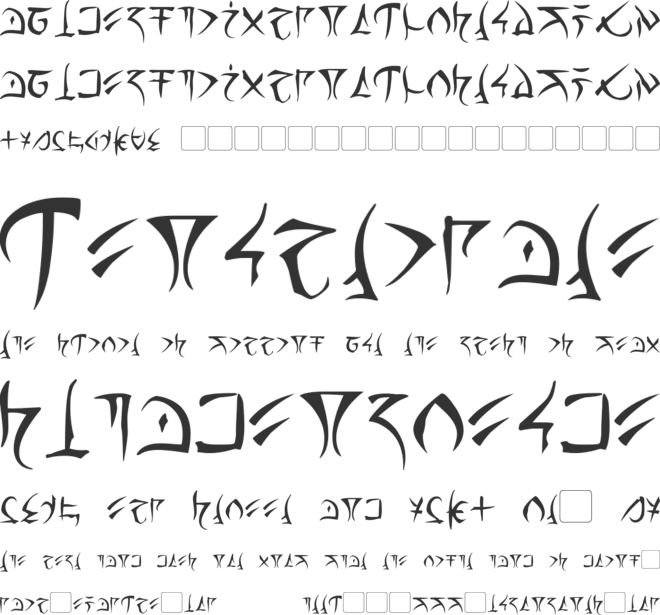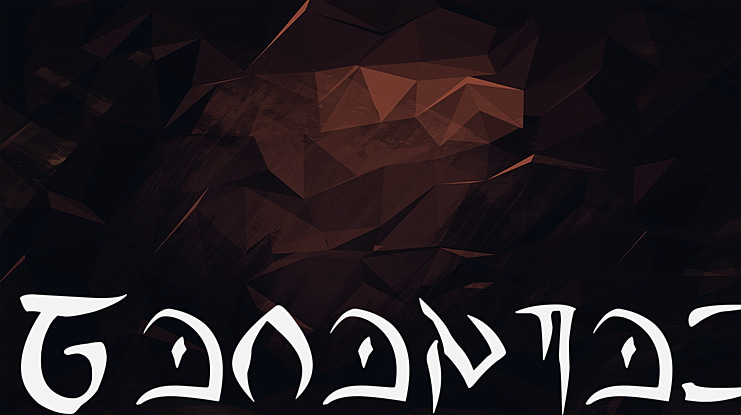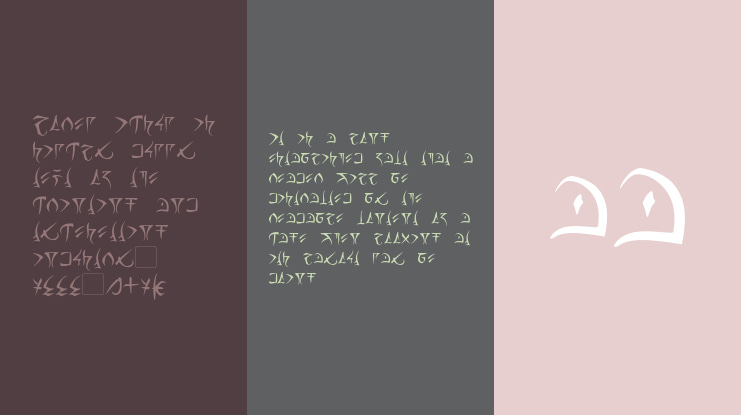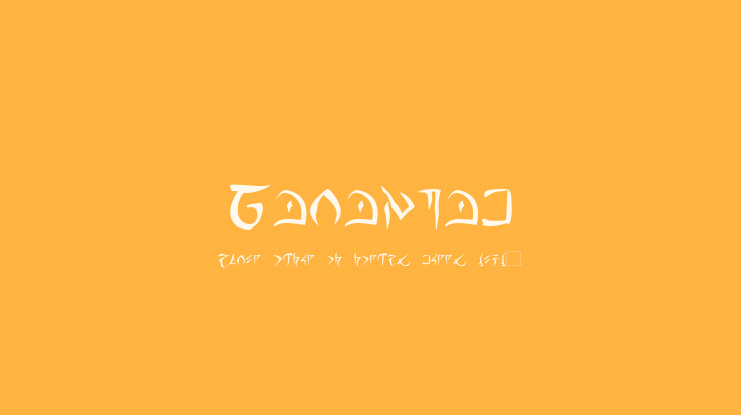
Barazhad Font Family
Neale Davidson
Barazhad is an etched, flourished, runic face based on the demonic and occult and necrotic languages from Wizards of the Coast’s Dungeons and Dragons game (fourth edition). Includes canon alphabet and numerals. Includes regular, bold, italic, and bold-italic weights.